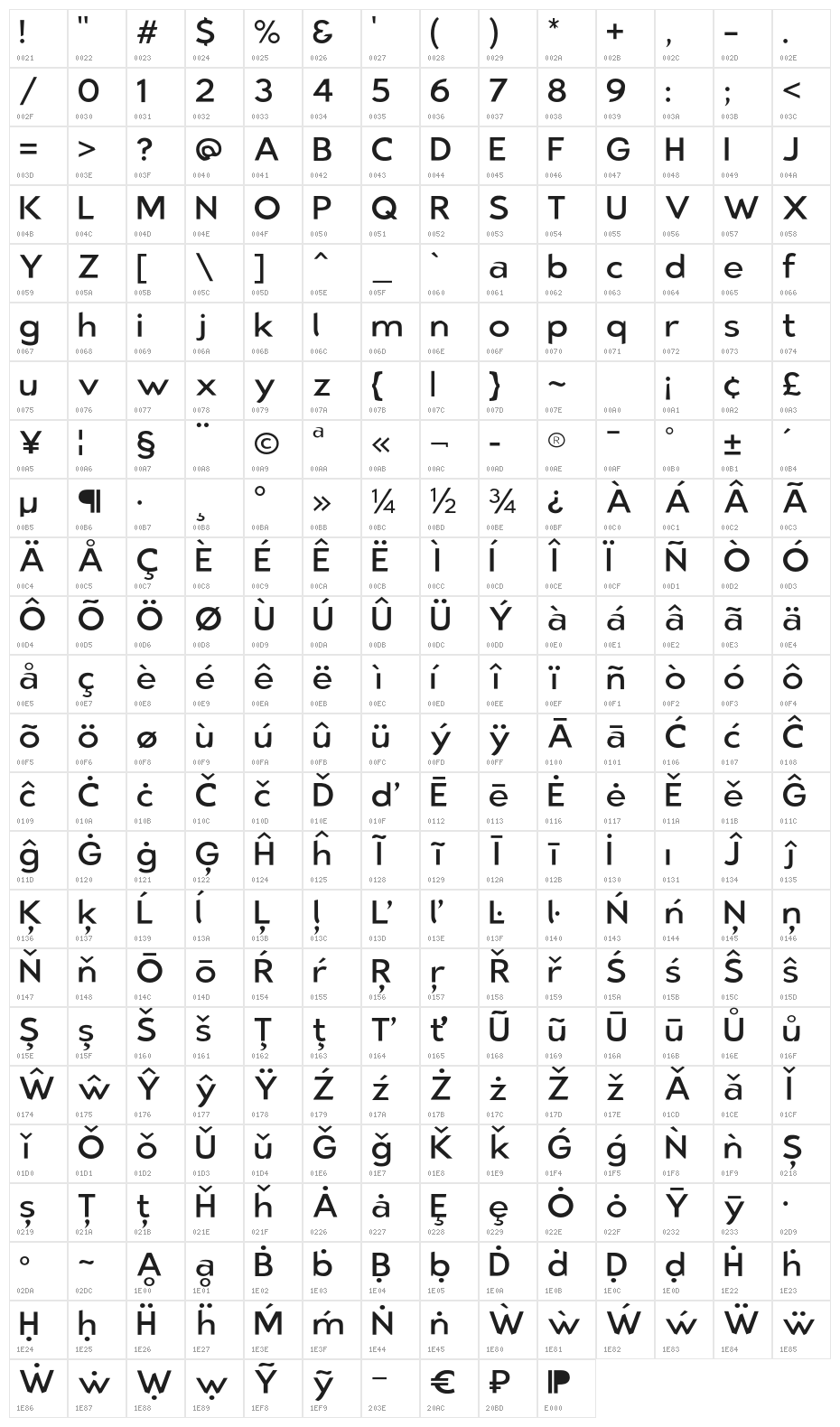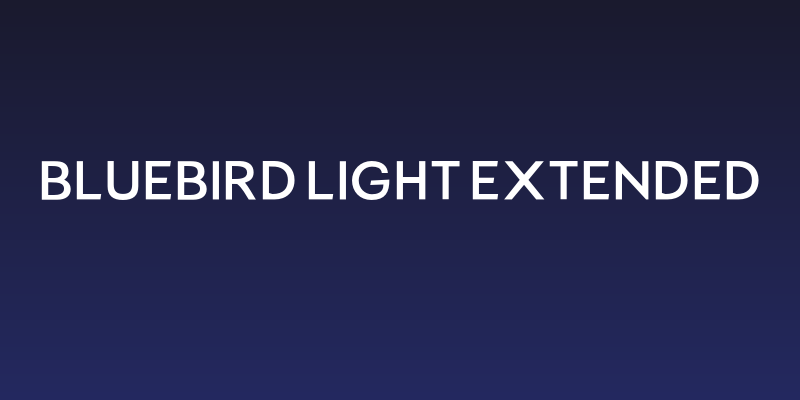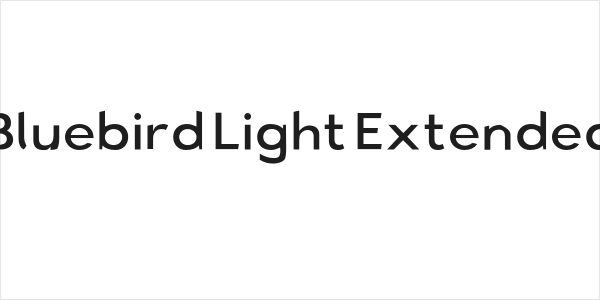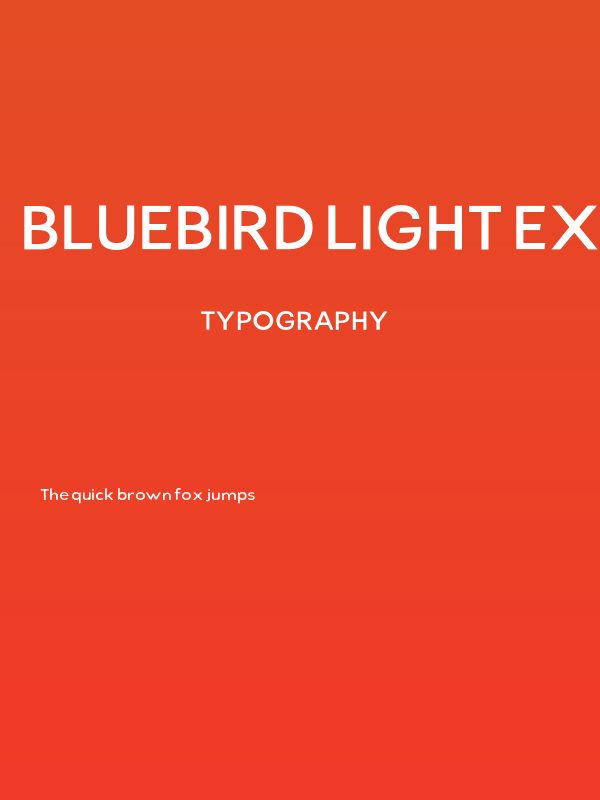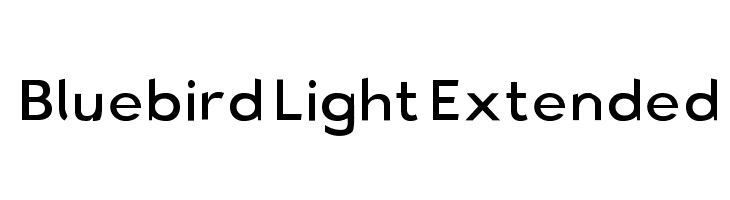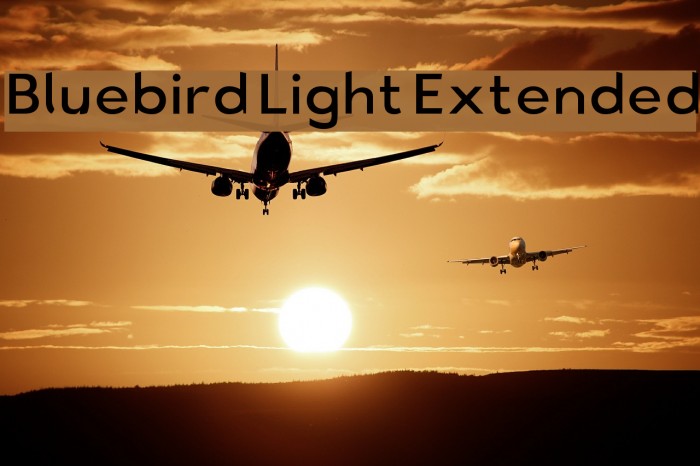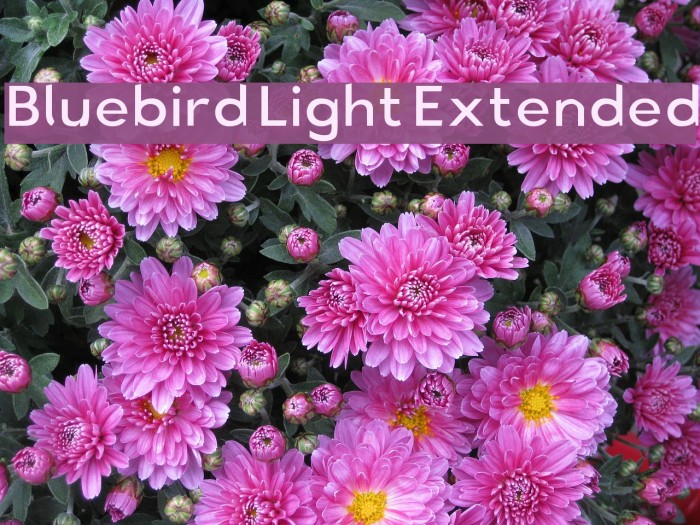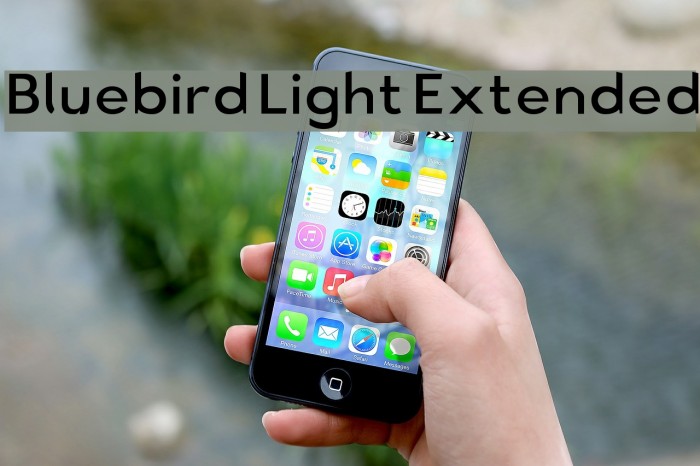
Bluebird Light Extended Font
Bluebird Light Extended Description
This font features a clean and modern sans-serif design with a light weight, making it ideal for a wide range of applications. The characters are extended, providing a spacious and airy feel. The uppercase and lowercase letters maintain a consistent geometric style, with smooth curves and straight lines that enhance readability. The numerals are clear and distinct, matching the overall aesthetic of the font. Special characters are included, offering versatility for various design needs. The overall appearance is sleek and professional, suitable for both digital and print media.